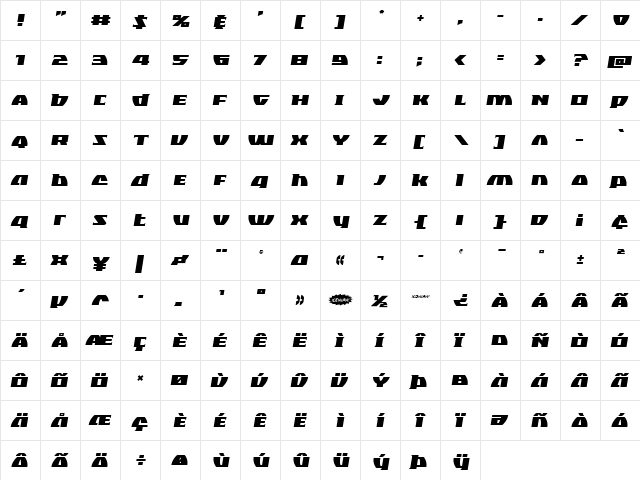
Black Bishop Semi-Italic Semi-Italic
Design Context for Black Bishop Semi-Italic Typeface
Black Bishop Semi-Italic is a composed and adaptable typeface that performs quietly and consistently across a wide range of design contexts. The slanted form adds forward momentum and visual energy.